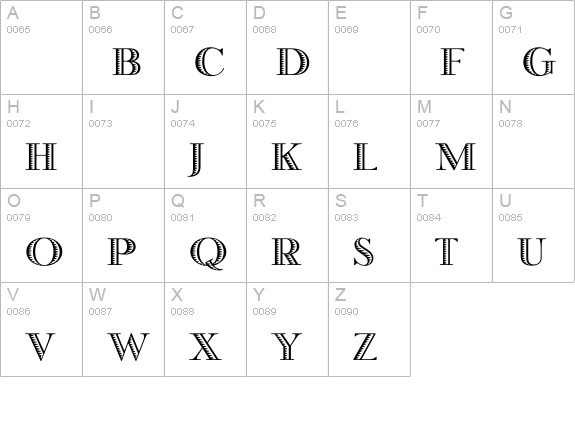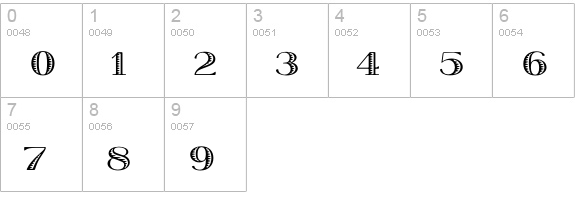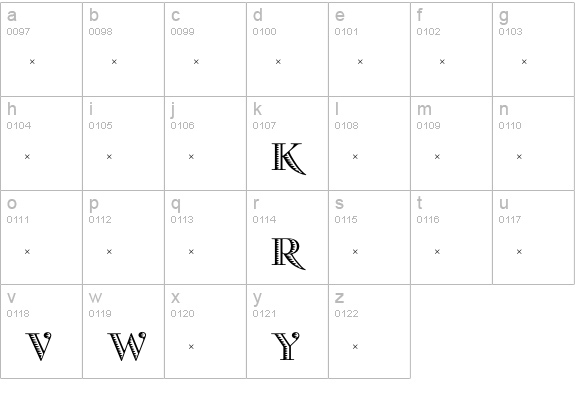
Honduras Font Details
Introducing Honduras font, a modern and elegant typeface perfect for a wide range of design projects. With its clean lines and stylish appearance, Honduras font adds a touch of sophistication to any design. Whether you're creating invitations, logos, posters, or anything in between, Honduras font is sure to make your work stand out. Best of all, Honduras font is completely free to download at FontsMarket.com. This means you can easily access this high-quality font without any cost, making it a valuable addition to your font collection. Don't miss out on the opportunity to enhance your designs with Honduras font - download it for free today!